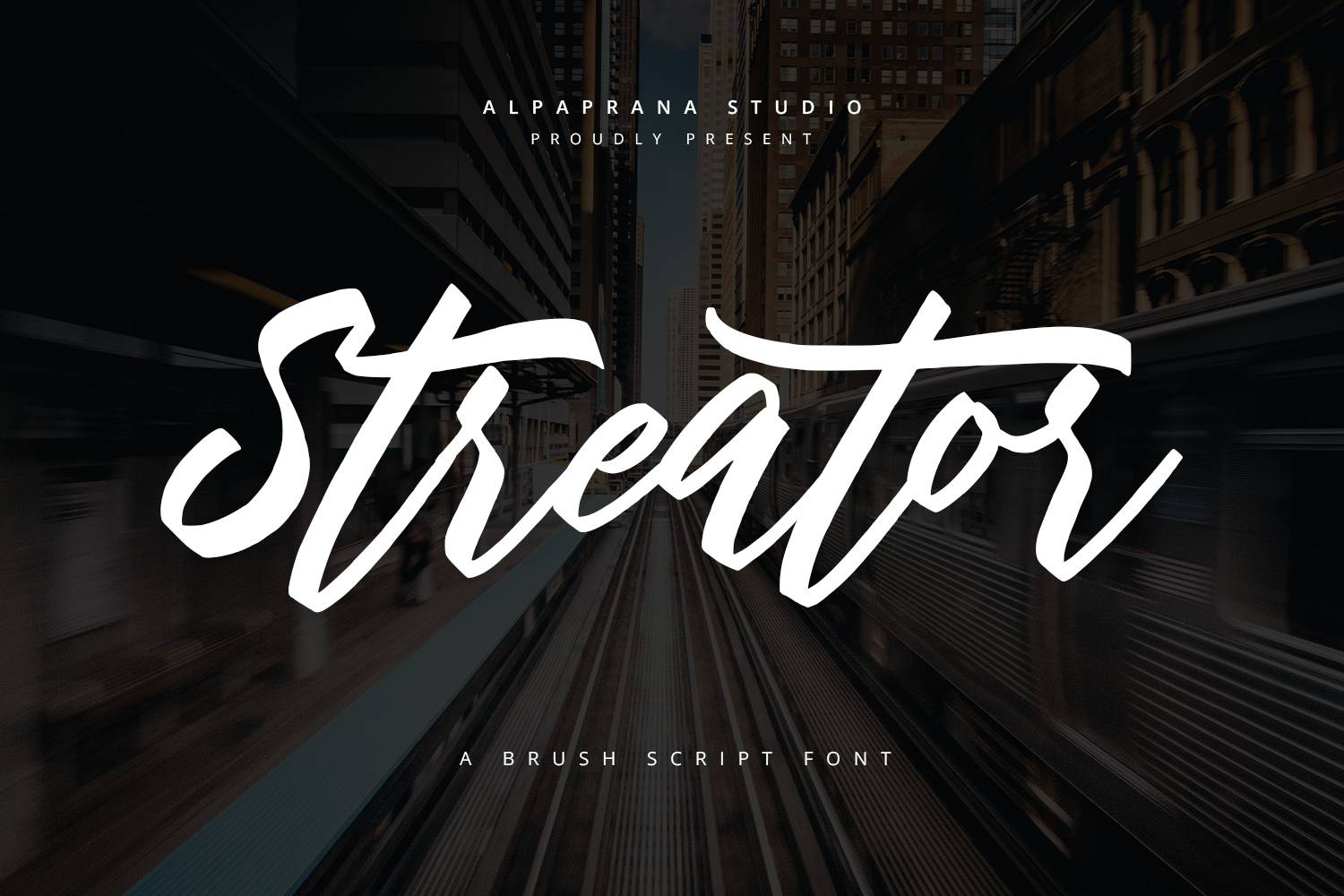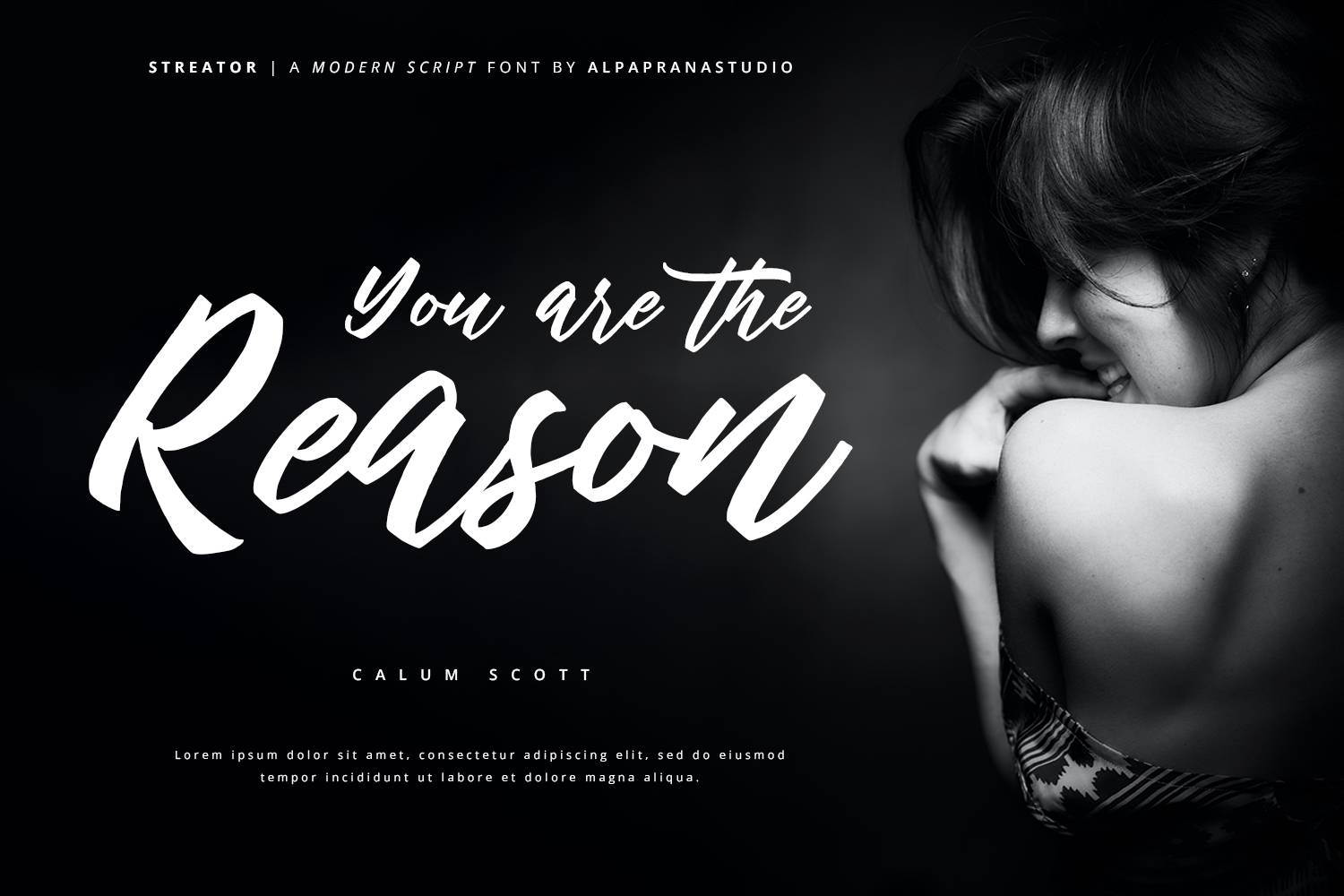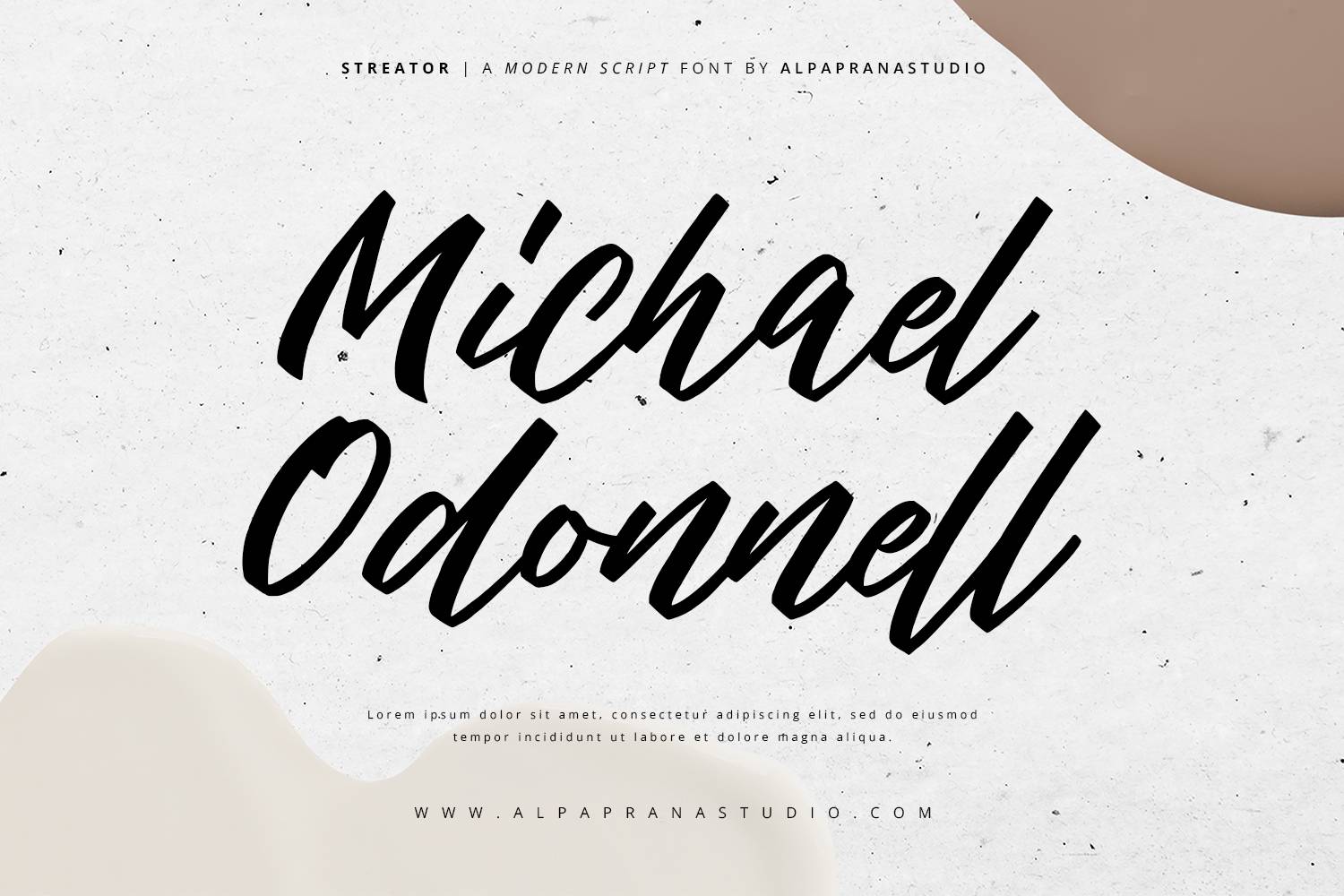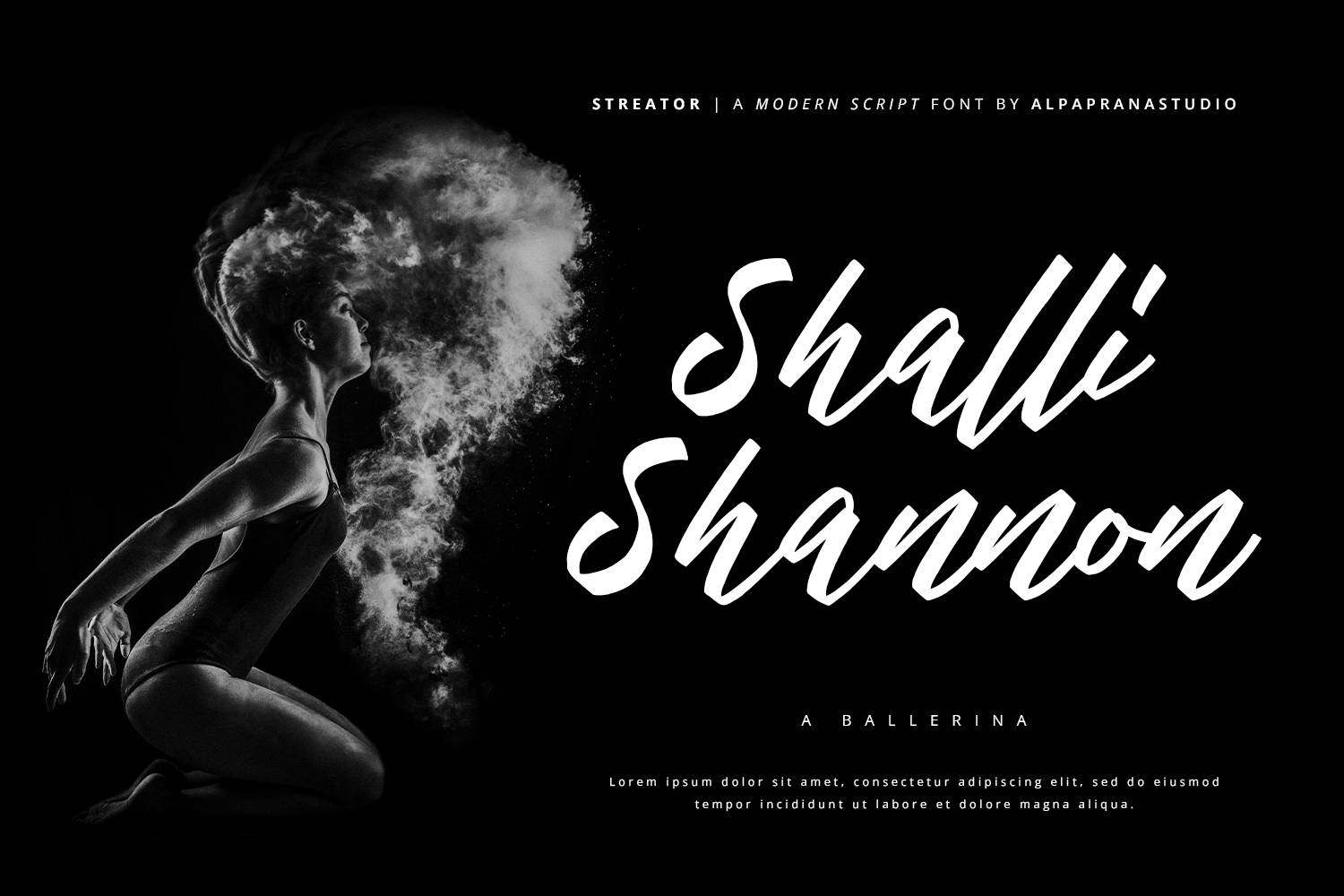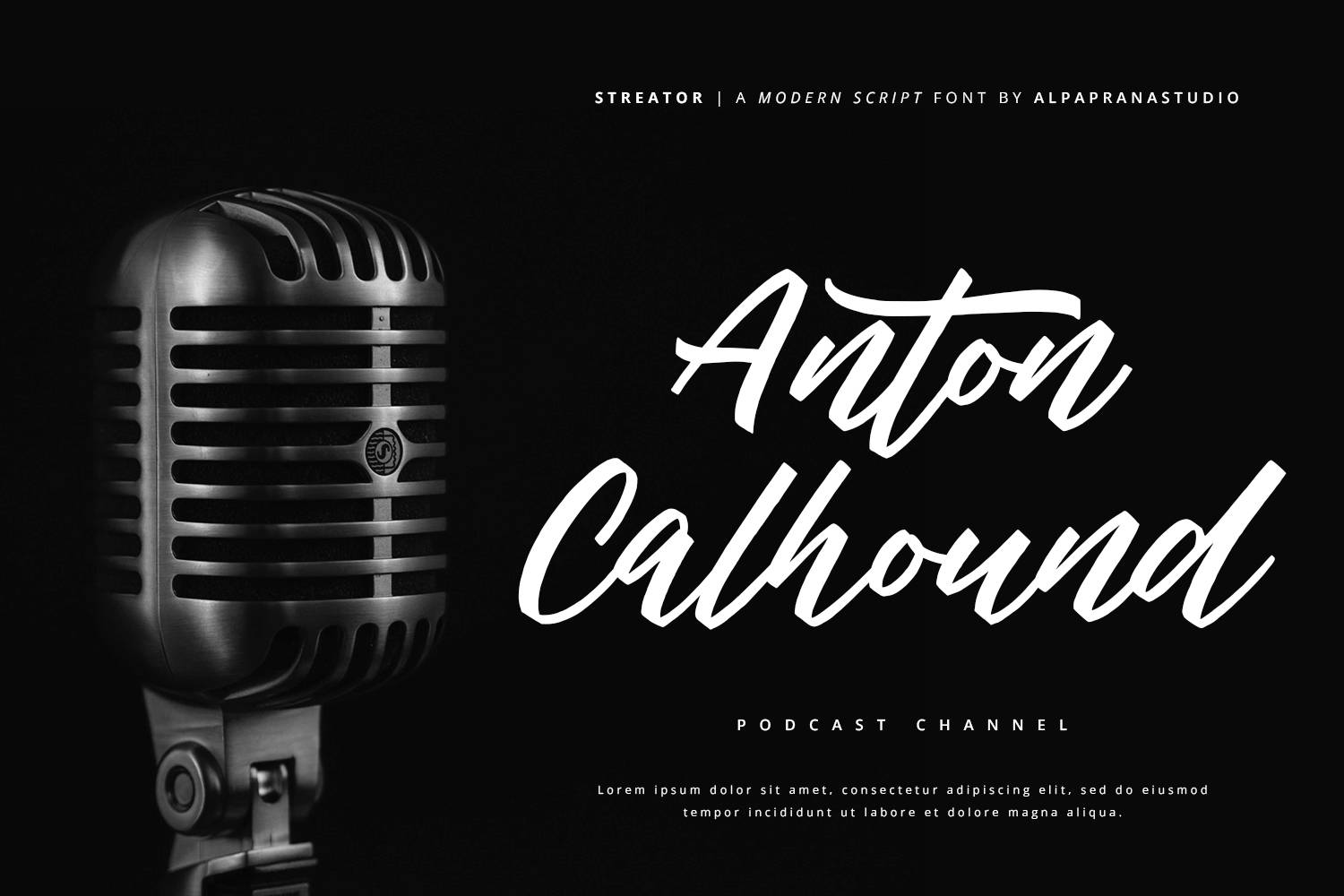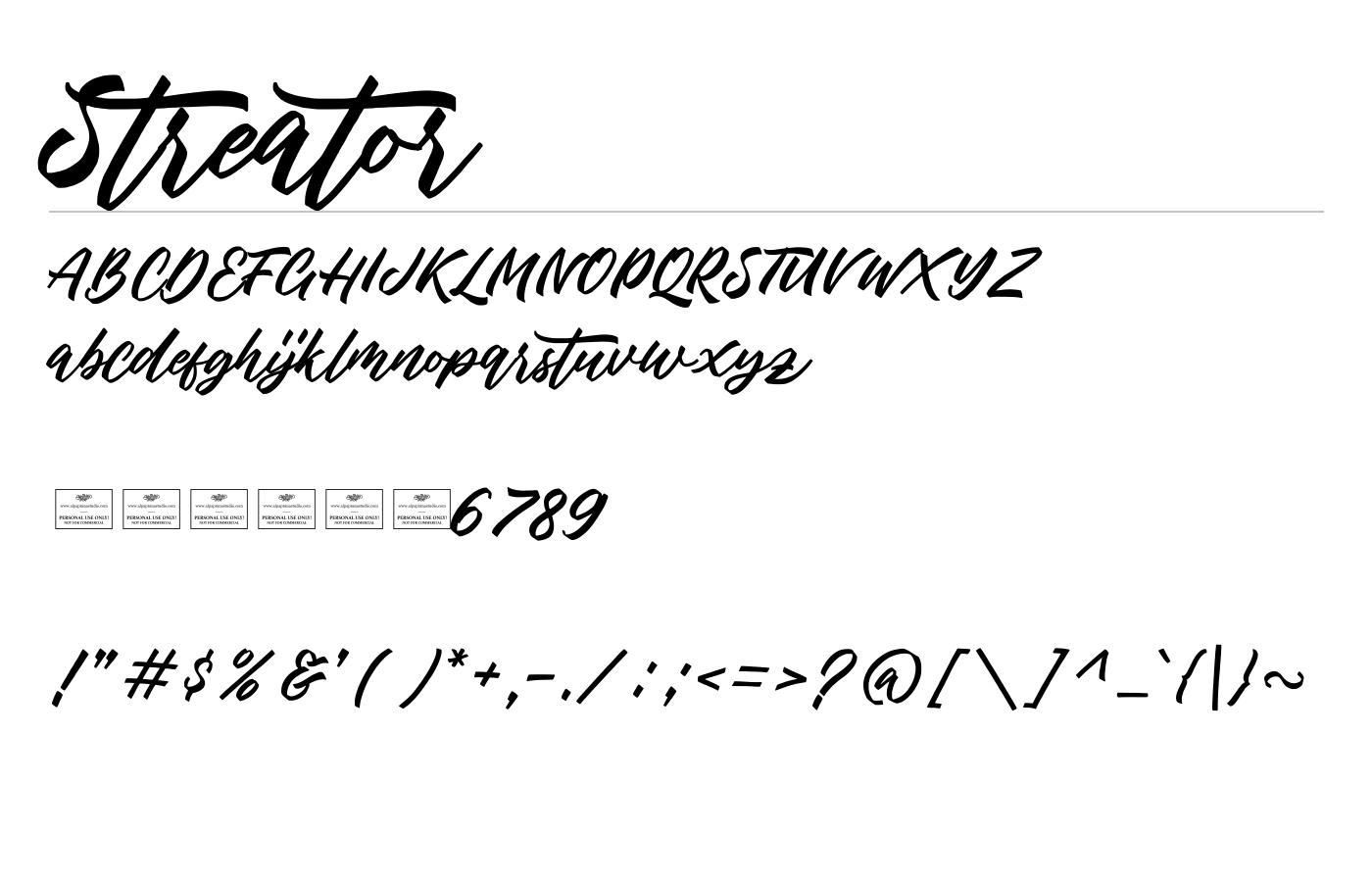
Streator is a lively script font with a smooth, hand-painted feel that combines casual elegance with dynamic movement. Its medium weight and slightly condensed letterforms feature a natural flow and moderate contrast, making it ideal for branding, invitations, and creative headlines where a personal, stylish touch is desired. This font works well in projects that aim to convey warmth, creativity, and a modern yet approachable personality.
Streator Font